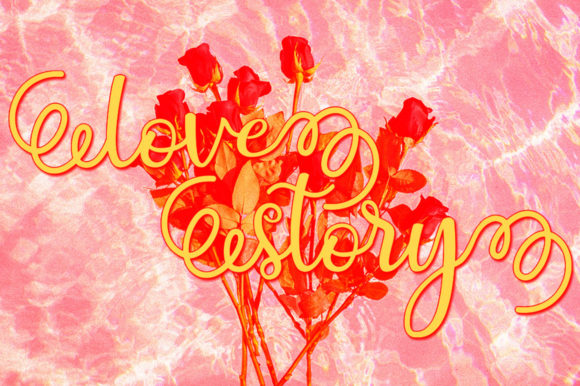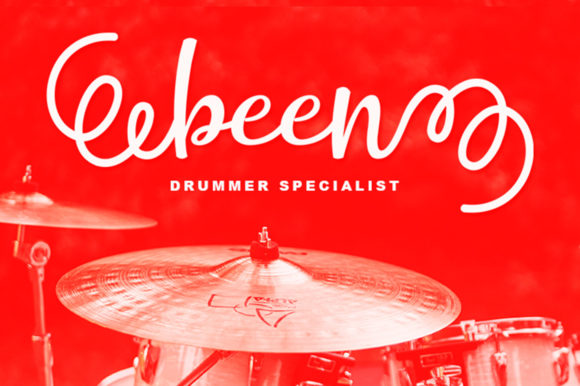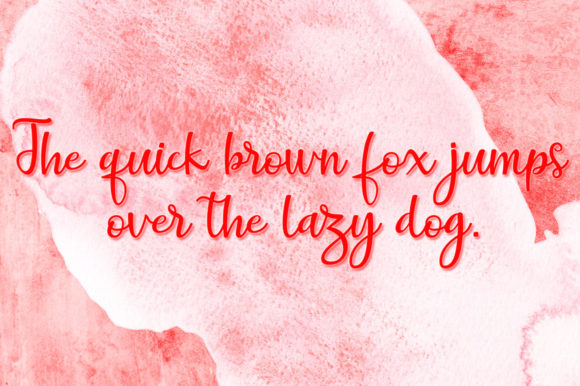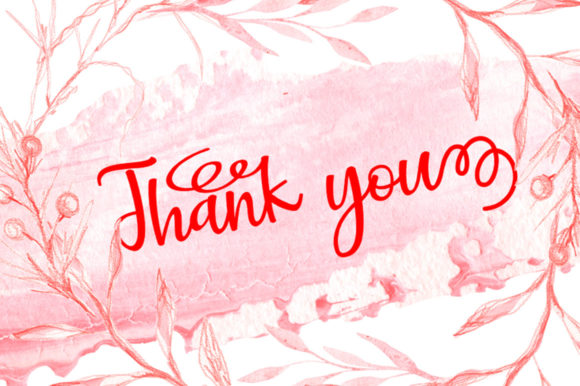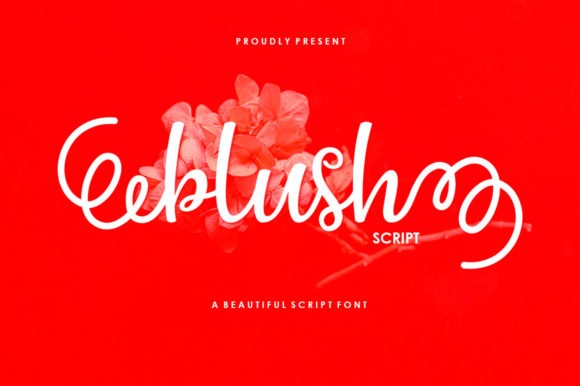
Introducing Blush Script Font: Elevate Your Designs with Charming Playfulness
The Charm of Blush Script Font
Blush Script Font is a lovely script font that boasts charming, playful characters that seem to dance along the baseline. Its unique design makes it perfect for adding a touch of personality to any project. Whether you’re working on a branding project, crafting a beautiful wedding invitation, or creating engaging social media content, Blush Script is sure to make your designs shine.
Key Features of Blush Script Font
• PUA Encoded: Blush Script Font is PUA (Private Use Area) encoded, which means you can access all glyphs and swashes with ease. This feature allows for greater flexibility and creativity in your designs.
• Charming and Playful: The font’s charming and playful characters are designed to add a touch of whimsy to your designs.
• Elegant and Sophisticated: Despite its playful nature, Blush Script Font also exudes elegance and sophistication, making it suitable for a wide range of design projects.
• Pair with a Sans-Serif Font: Pair Blush Script Font with a sans-serif font to create a beautiful contrast and add visual interest to your designs.
• Experiment with Swashes: Take advantage of the font’s swashes to add a touch of elegance and sophistication to your designs.